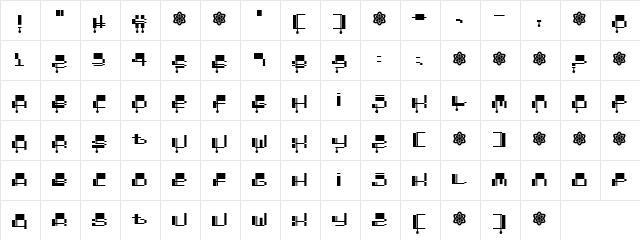
Oddessey 2000 Regular
Design Context for Oddessey 2000
Oddessey 2000 is a composed and adaptable typeface that performs quietly and consistently across a wide range of design contexts.
Pro Tip: Use Oddessey 2000 in both headline and body roles to test its range before committing to a single application.